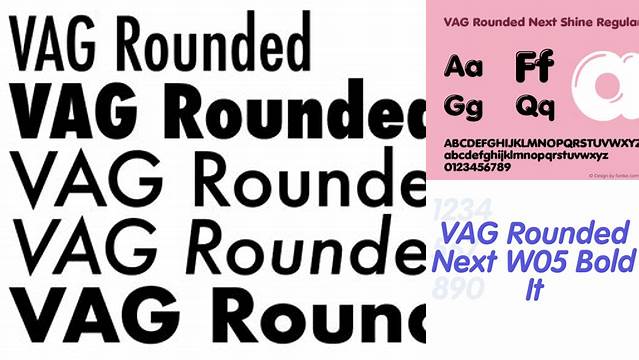
Hey guys! Ever stumbled upon a font that just clicks? VAG Rounded Next Medium might just be that font for you. It’s clean, modern, and super versatile. Whether you’re designing a logo, crafting website copy, or just need a font that’s easy on the eyes, this one’s a winner. In this article, we’re diving deep into everything VAG Rounded Next Medium. We’ll explore what makes it so special, where you can snag it for free (yes, you read that right!), and how to make the most of it in your projects. Let’s get started!
What is VAG Rounded Next Medium Font?
So, what exactly is VAG Rounded Next Medium? Well, it’s a sans-serif typeface known for its rounded terminals, giving it a friendly and approachable vibe. The “Next” in its name hints at its modern updates and refinements over earlier versions. The “Medium” weight strikes a perfect balance – not too bold, not too light, just right for a wide range of applications. This font is particularly popular because it's incredibly readable and has a contemporary feel that works well in both digital and print media. Imagine using it for user interfaces, branding materials, or even in educational content – it just fits!
The appeal of VAG Rounded Next Medium lies in its simplicity and versatility. It’s not a font that screams for attention, but rather one that subtly enhances the overall design. Its rounded edges soften the look, making it more inviting than some of the sharper, more geometric sans-serifs out there. Think of it as the friendly neighbor of the font world – always reliable and pleasant to be around. Designers often choose it when they want to convey a sense of modernity, clarity, and approachability. It's a font that says, “We’re easy to work with, and we care about details.”
The History and Evolution of VAG Rounded Font Family
The history of the VAG Rounded font family is pretty interesting. It originally emerged from the design studios of Volkswagen AG (VAG), hence the name. Initially, it was created for internal use, primarily for dashboards and other in-car displays. The goal was to create a font that was highly legible, even under challenging lighting conditions. This focus on clarity and readability is a key part of its DNA. Over time, the font’s appeal grew beyond the automotive industry, and it was eventually released for broader commercial use.
The evolution of VAG Rounded has seen several iterations and refinements. The “Next” versions, including the Medium weight, represent updates that enhance its usability and aesthetic appeal. These updates often involve tweaks to character spacing, glyph shapes, and overall consistency. The result is a font that feels both familiar and fresh, retaining the core characteristics that made it popular while adapting to modern design trends. Designers have embraced these updates, finding that they offer even greater flexibility and improved performance in various contexts. So, while it started as a practical solution for car dashboards, it has since become a widely recognized and appreciated typeface in the design community.
Key Characteristics of VAG Rounded Next Medium
What makes VAG Rounded Next Medium stand out? Several key characteristics define its unique appeal. First and foremost, the rounded terminals are its most recognizable feature. These soft edges give the font a friendly and approachable feel, making it less harsh than fonts with sharp corners. This is particularly useful when you want to create a design that feels welcoming and easy to engage with.
Another important characteristic is its legibility. The font is designed with clear, well-defined letterforms that are easy to read at various sizes and resolutions. This makes it an excellent choice for body text, headlines, and even smaller UI elements. The Medium weight strikes a perfect balance, providing enough visual presence without being too overpowering. It’s also worth noting the font’s consistent letter spacing and kerning, which contribute to its overall readability and aesthetic appeal. These details make a big difference in creating a polished and professional look.